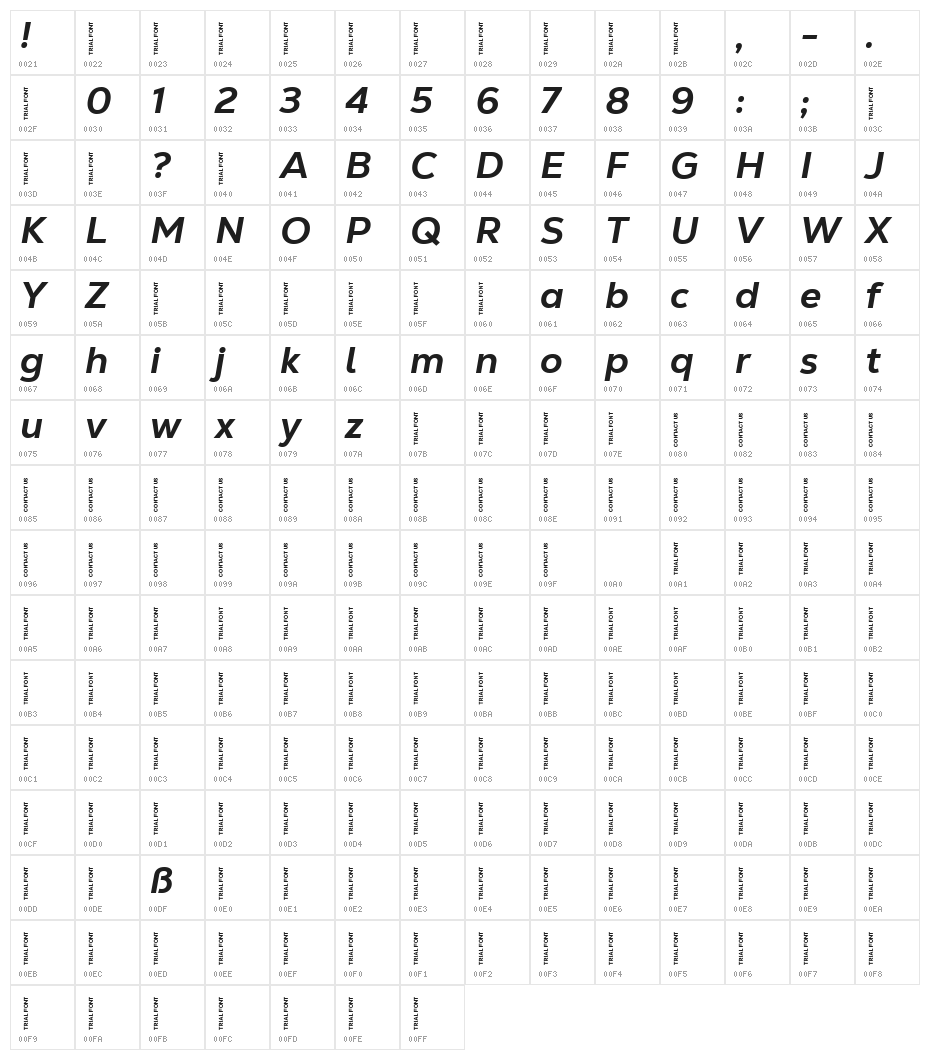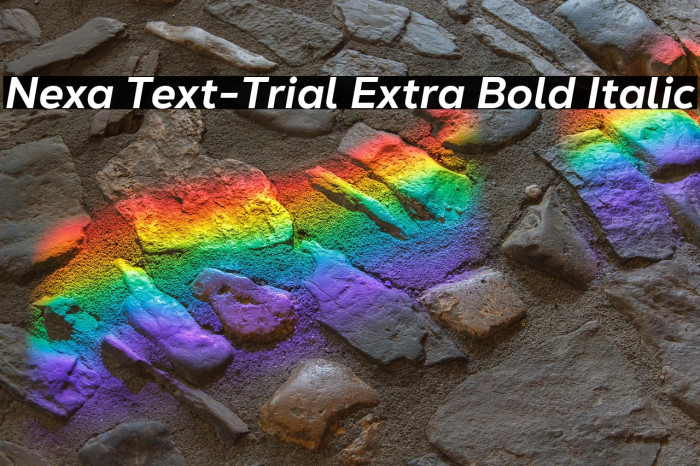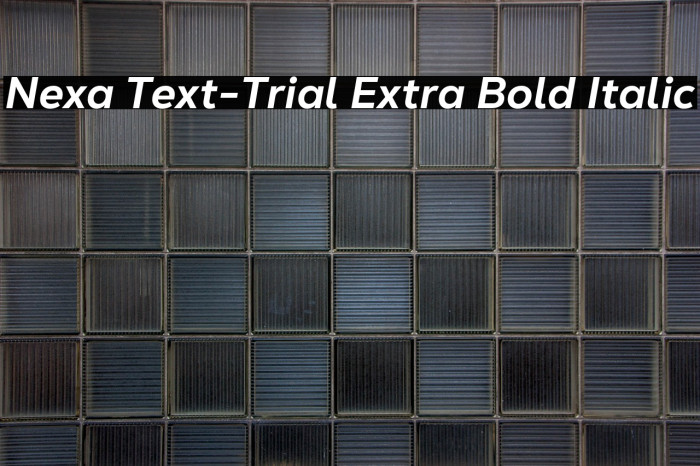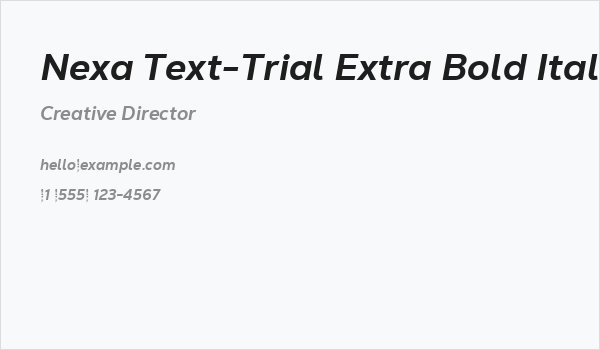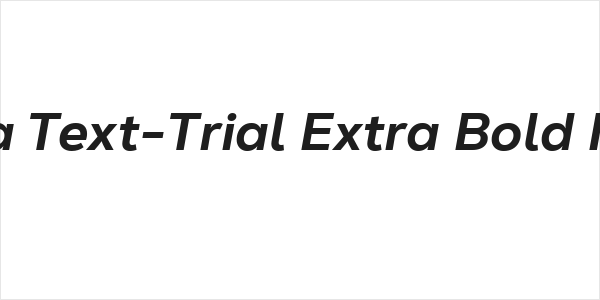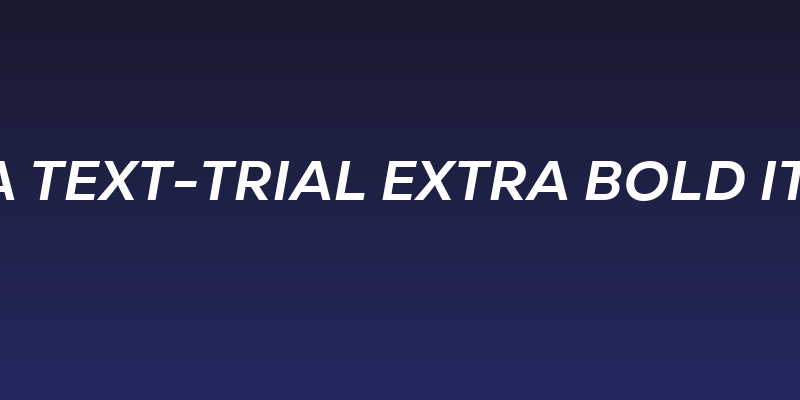
Nexa Text-Trial Extra Bold Italic Font
Nexa Text-Trial Extra Bold Italic Description
This font exhibits a modern and sleek design with a strong emphasis on clarity and readability. The characters are bold and italicized, giving them a dynamic and forward-leaning appearance. The strokes are consistent and smooth, contributing to a clean and professional look. The uppercase and lowercase letters maintain a uniform style, ensuring coherence across different text sizes. The numerals are clear and easily distinguishable, making them suitable for both digital and print media. The special characters are well-defined, adding versatility to the font's application.